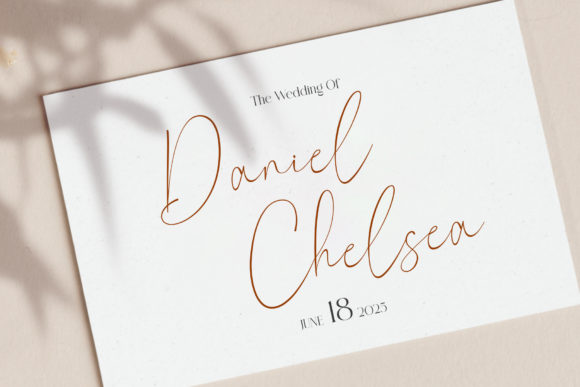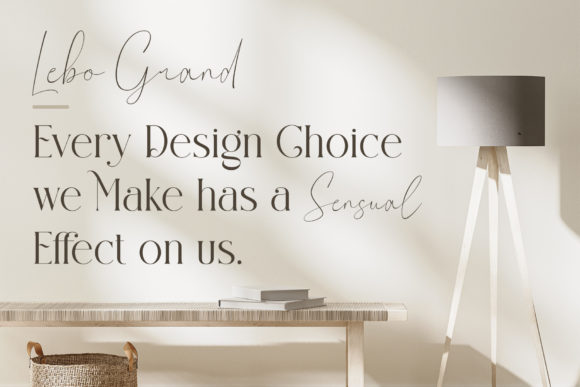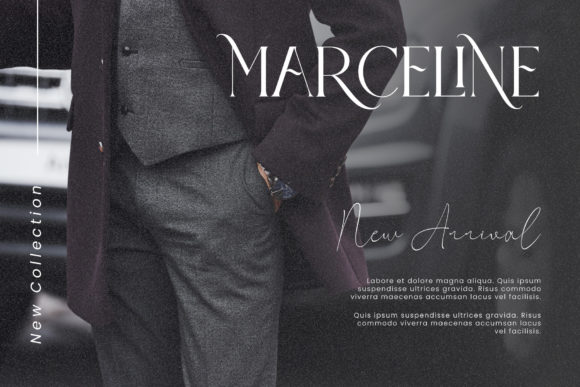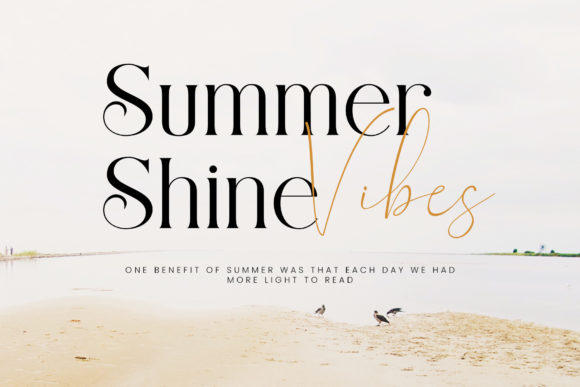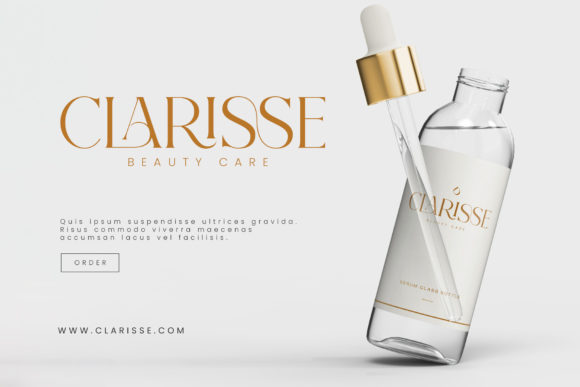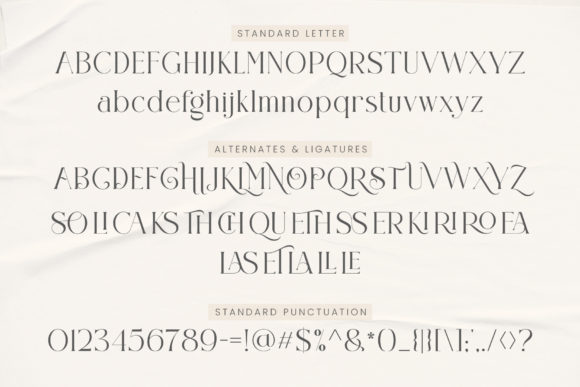
Introducing Claster Oleander Font: Elevate Your Designs with Elegance
In the world of typography, finding the perfect font that combines beauty, elegance, and versatility can be a daunting task. However, for designers and crafters seeking a unique and refreshing look for their projects, Claster Oleander Font is an exceptional choice. This gorgeous duo font, consisting of serif and script variations, is not only visually stunning but also highly functional, thanks to its PUA (Private Use Area) encoding.
What Makes Claster Oleander Font Stand Out?
Claster Oleander Font is a meticulously crafted typeface designed to meet the needs of creatives who aim to add a touch of sophistication and charm to their designs. Here are some key features that make it stand out:
- Dual Font Style: The package includes two complementary font styles – serif and script. The serif font offers a classic, structured look, while the script font adds a fluid, elegant touch. This versatility allows designers to use them together or separately, depending on the project’s requirements.
- PUA Encoded: The font is PUA encoded, which means that accessing the additional glyphs and ligatures is straightforward. This feature is particularly beneficial for users who want to explore a wide range of typographic possibilities without needing specialized software.
- Rich in Glyphs and Ligatures: With PUA encoding, Claster Oleander Font comes with an array of glyphs and ligatures. These elements can significantly enhance the visual appeal of any design, allowing for more creative freedom and the ability to produce unique, customized work.
Whether you’re working on a branding project, creating invitations, or designing packaging, Claster Oleander Font can help you achieve a beautiful and refreshing look. Its elegant appearance makes it suitable for:
- Branding and Logotypes: The distinctive style of Claster Oleander can help establish a strong brand identity.
- Wedding and Event Stationery: Add a touch of class and sophistication to invitations, menus, and other event materials.
- Packaging and Product Design: Stand out on store shelves with elegant packaging that reflects your brand’s personality.
- Digital Media: Enhance your website, social media posts, or advertising with a font that captures attention and conveys your message effectively.
Why Choose Claster Oleander Font?
With so many fonts available, why should Claster Oleander be your go-to choice? The answer lies in its unique blend of beauty, functionality, and ease of use. Here are a few reasons why designers and crafters are gravitating towards this font:
- Time-Saving: The PUA encoding ensures that you can easily access all glyphs and ligatures, saving you time and effort in your design process.
- Cross-Platform Compatibility: Claster Oleander Font is designed to work seamlessly across various platforms and software, ensuring consistency in your designs.
- Support for Creative Freedom: With its extensive range of glyphs and ligatures, this font empowers you to bring your creative visions to life without limitations.
Claster Oleander Font is more than just a typeface; it’s a tool that can elevate your designs to new heights. Its combination of a serif and script font, PUA encoding, and rich set of glyphs and ligatures, makes it an invaluable resource for designers and crafters. Whether you’re aiming to create stunning brand identities, beautiful stationery, or captivating digital content, Claster Oleander Font offers the elegance and versatility you need. Explore the possibilities with Claster Oleander Font and discover how it can transform your designs.